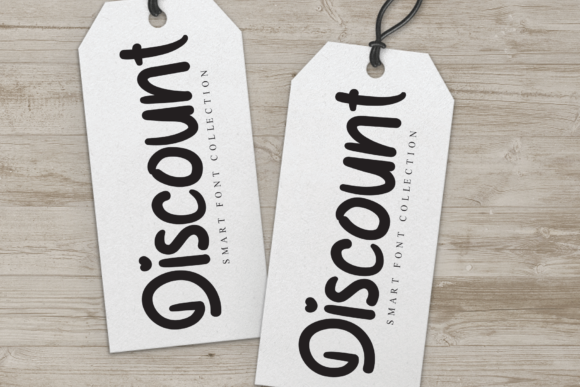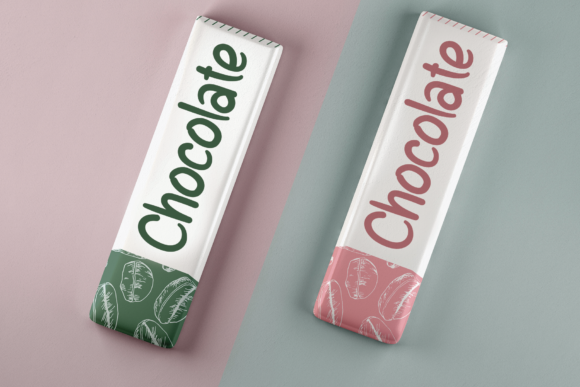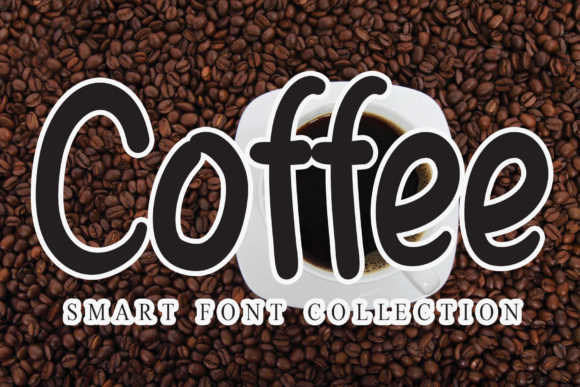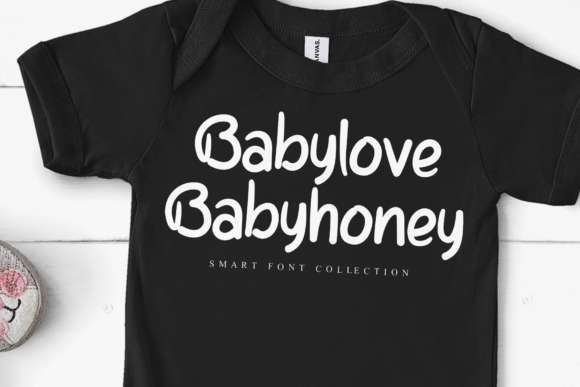
Introduction to Notelove Font Font
Fonts play a crucial role in design, and the Notelove Font font is a typeface that brings both character and versatility to any project. Whether you’re working on a branding project, a website, or a print design, the Notelove Font font offers a unique style that can elevate your work.
Notelove is a cute handwritten font.
Its sweet and full of life style makes this font a wonderful choice for brightening up your designs .
Key Features of Notelove Font Font
Why Choose Notelove Font Font?
The Notelove Font font is more than just a typeface – it’s a design tool that helps you communicate your message with style and clarity. Its unique character set and versatile design make it suitable for a wide range of applications, from elegant invitations to bold headlines.
With its carefully crafted letterforms and balanced proportions, the Notelove Font font ensures readability and visual appeal across all mediums.
What makes Notelove Font font special?
The Notelove Font font stands out with its unique design, exceptional readability, and versatility across various design applications.